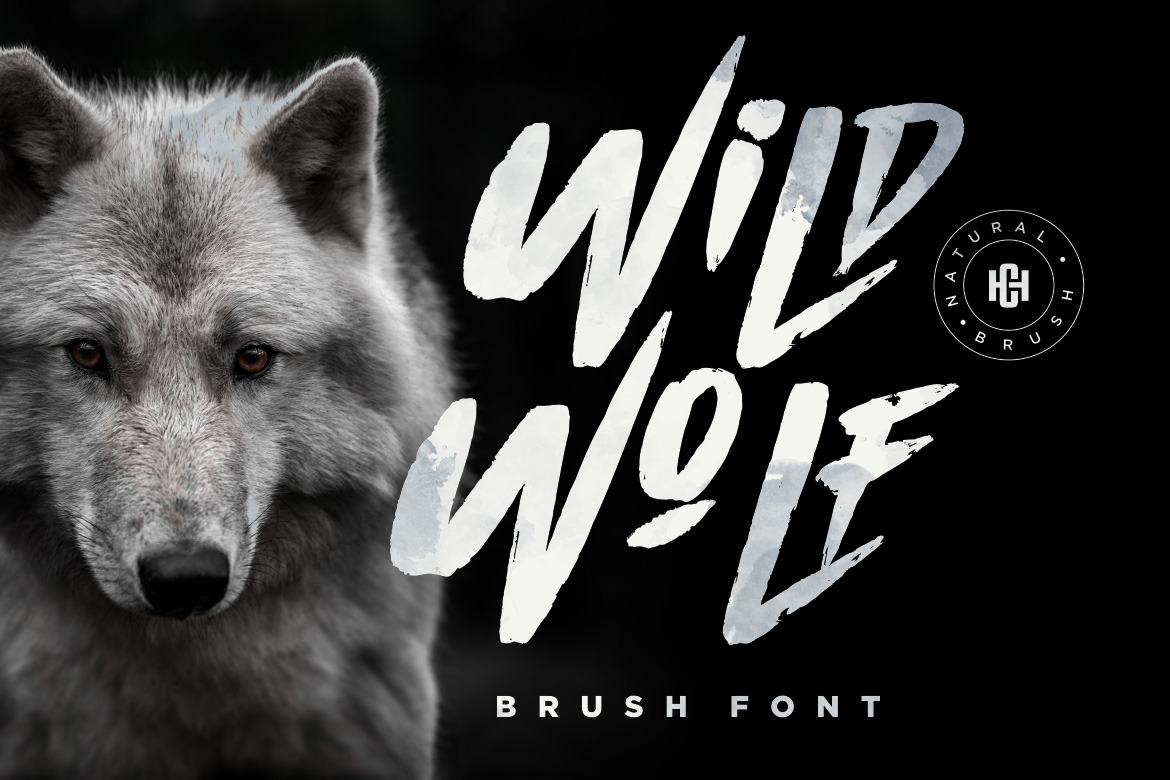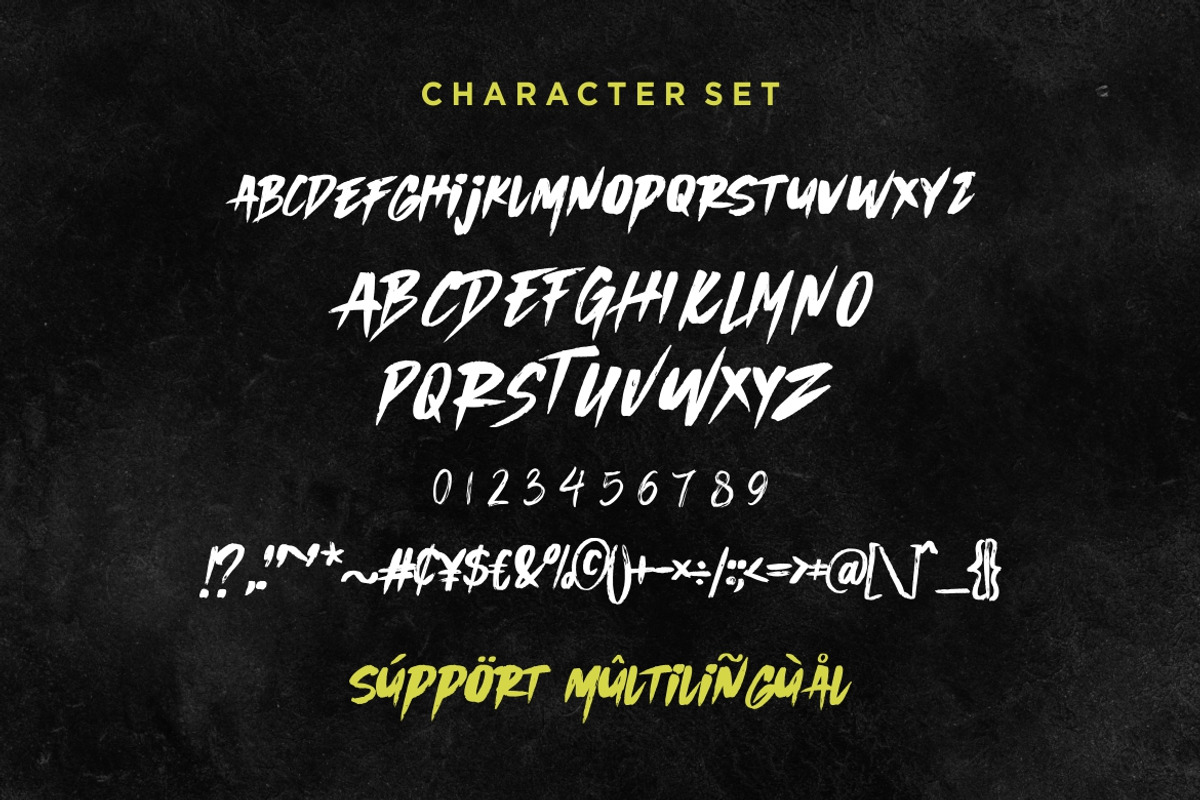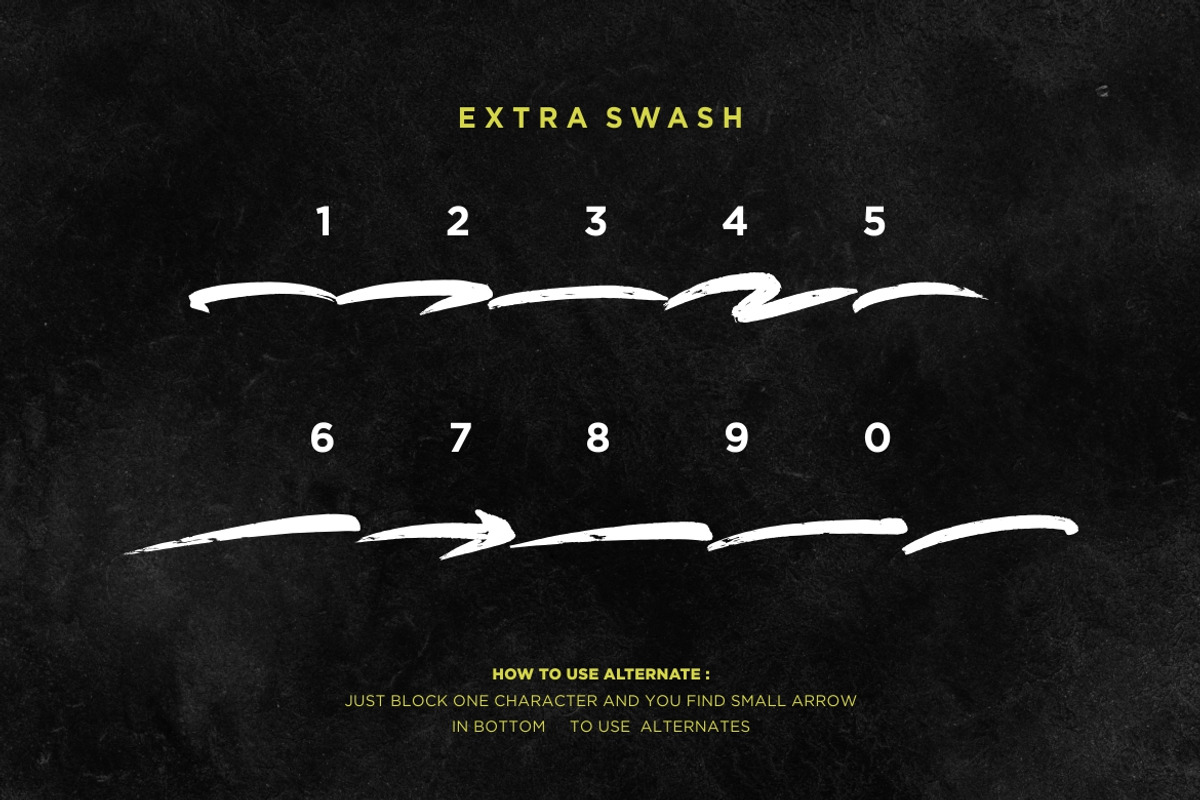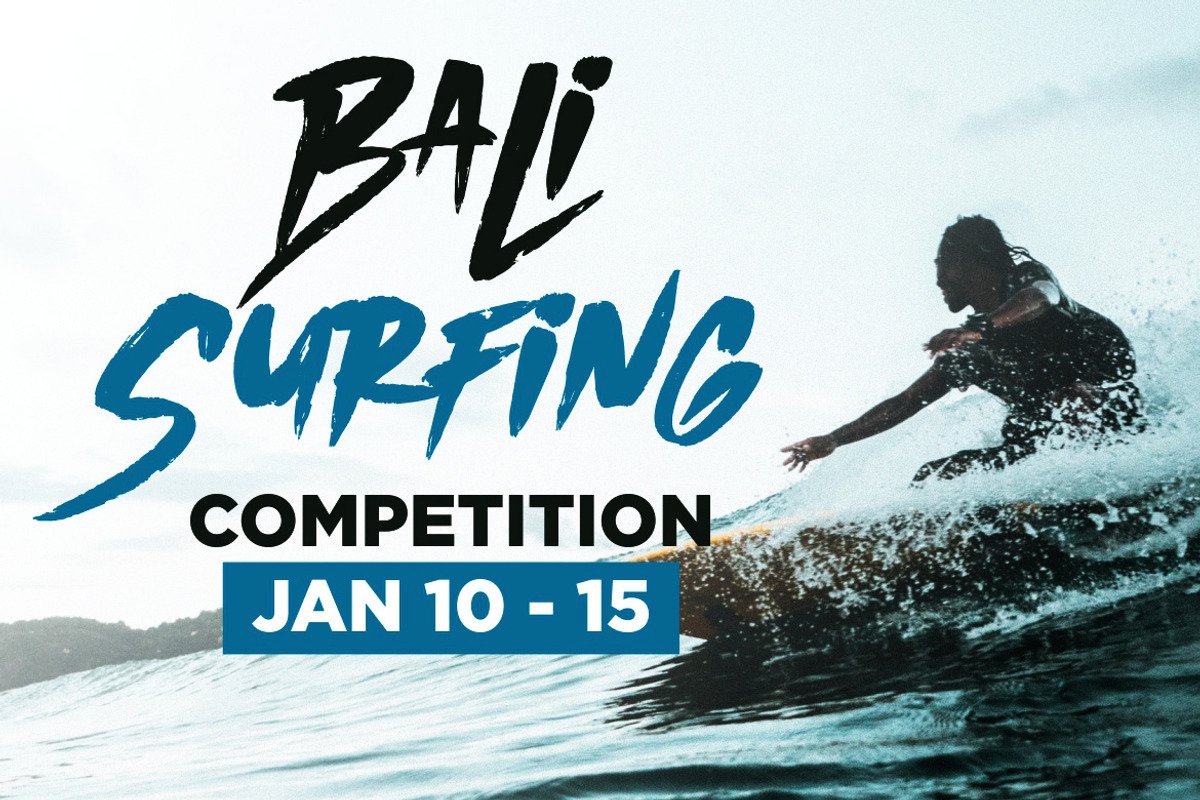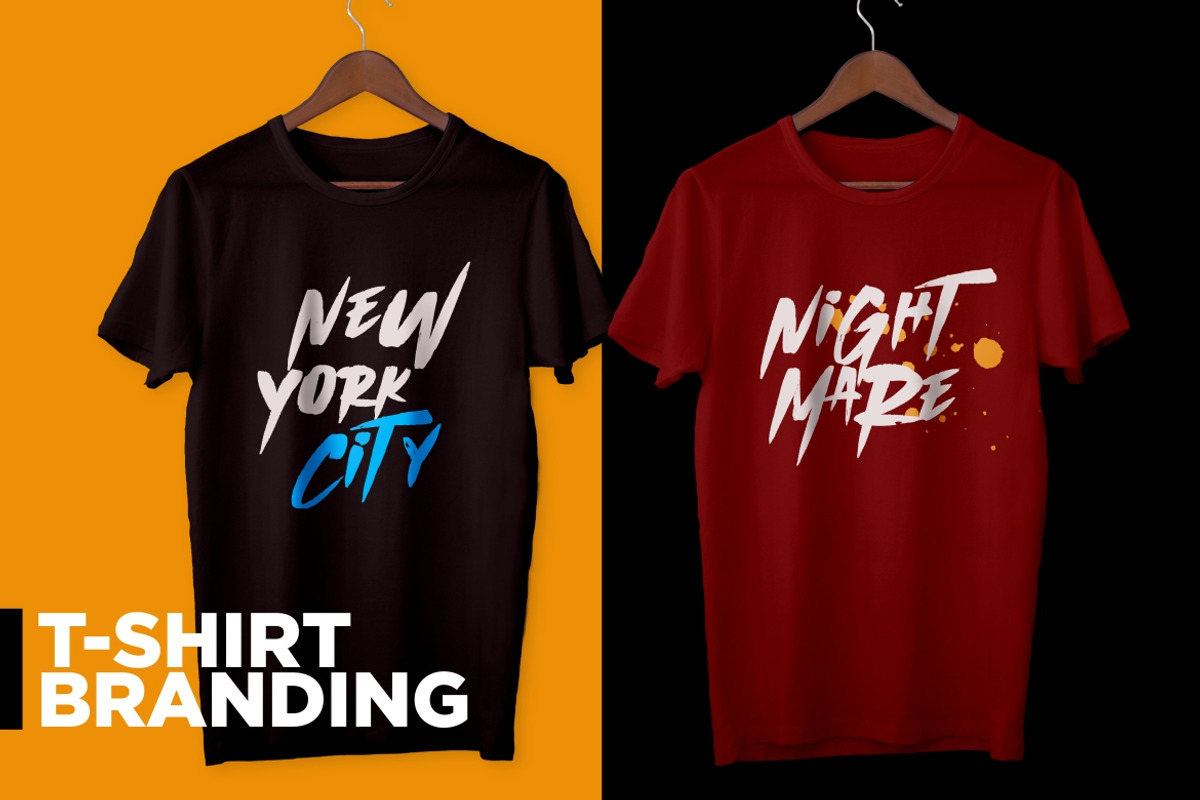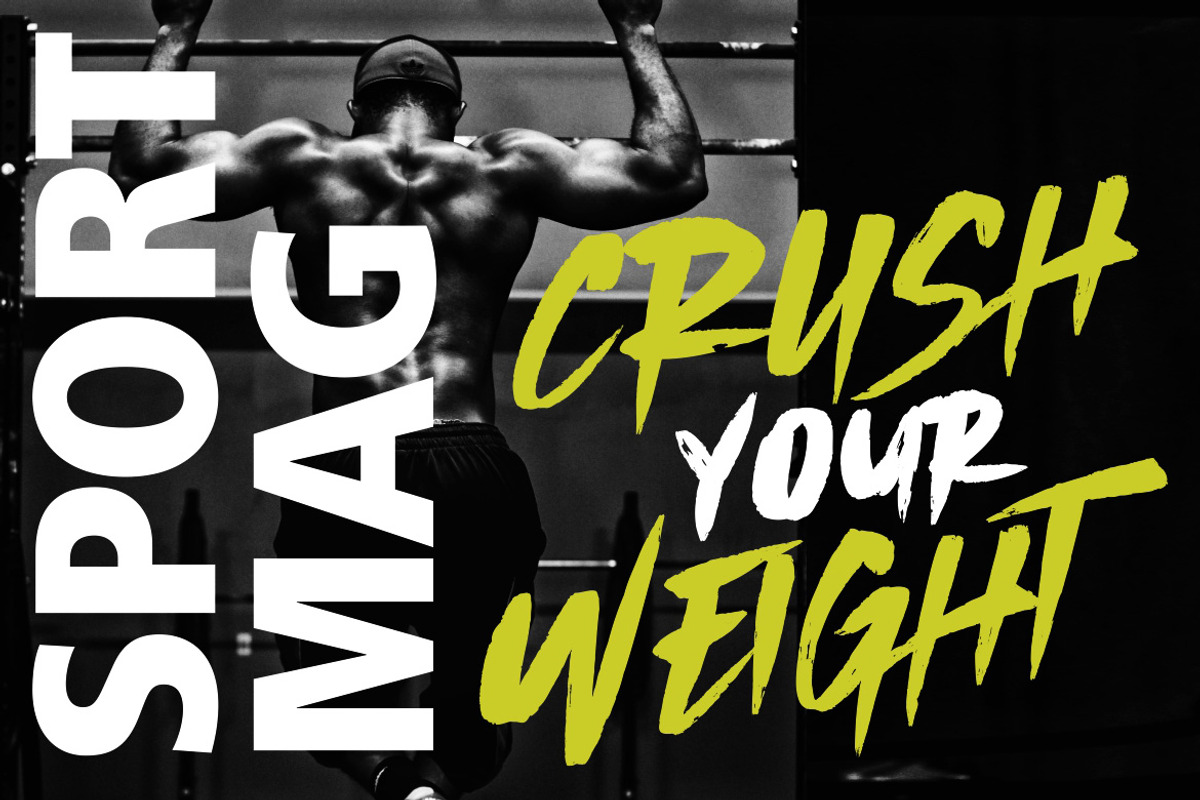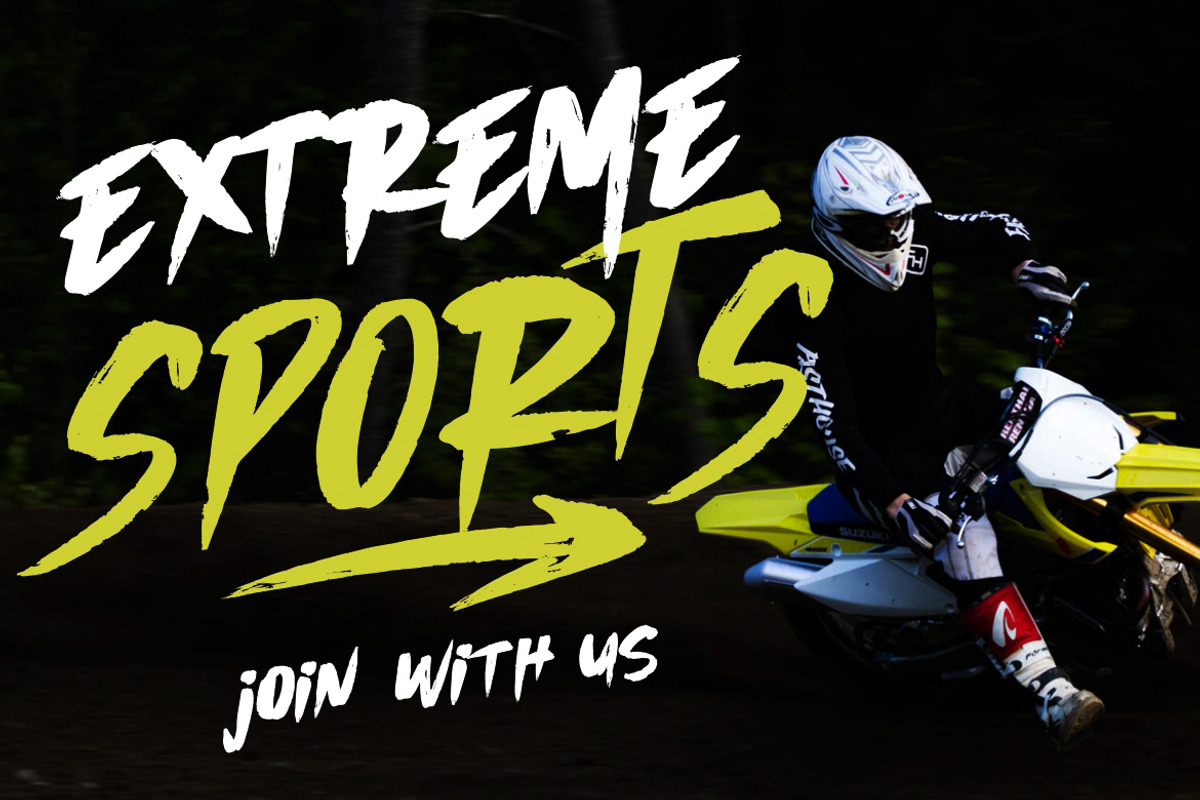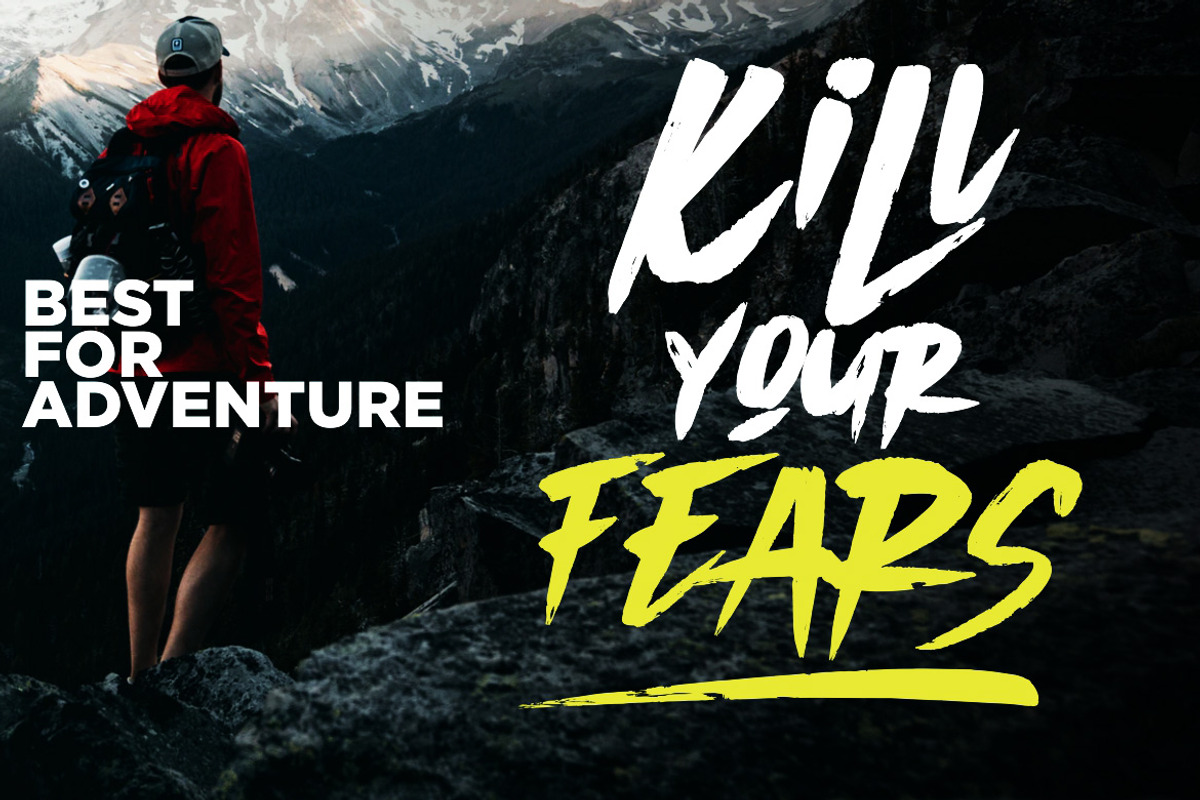
Wild Wolf - Brush Font
Wild Wolf is a handwritten bold and rough font with dry brush texture. You can get the swash brushes include as a alternate in this font. Wild Wolf is suitable for logo, product branding, or for text overlay to any background image.